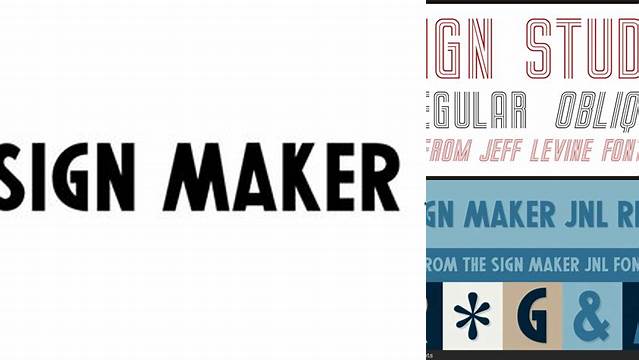
Hey guys, ever been on the hunt for that perfect font that just screams vintage or classic sign? You know, the kind of typeface that makes you feel like you’ve stepped into an old diner or a charming Main Street from yesteryear? Well, today, we’re diving deep into the world of Sign Maker JNL Font Free Download. This isn’t just any font; it’s a portal to a bygone era, offering a distinct aesthetic that many designers, crafters, and hobbyists are absolutely gaga over. Getting your hands on this gem for free download can seriously elevate your projects, whether you're making physical signs, digital graphics, or even just sprucing up a personal project. We’re talking about a font that embodies the spirit of hand-painted signs and traditional lettering, bringing a unique character that modern, sleek fonts just can’t replicate. So, buckle up, because we’re going to explore everything about this fantastic font, from where to find it to how to use it like a pro. Let’s get those design gears turning!
Unlocking the Charm of Sign Maker JNL Font Download
When you’re looking to infuse a touch of classic Americana into your designs, Sign Maker JNL Font download is often the first name that pops into mind for many design enthusiasts. This font isn't just a collection of letters; it’s a carefully crafted piece of digital art designed by Jeff Levine, known for his incredible work in reviving vintage typography. The charm of Sign Maker JNL Font lies in its authentic resemblance to old-school, hand-lettered signs, the kind you’d see adorning storefronts and advertisements from the mid-20th century. Guys, imagine the painstaking detail that went into those original signs, the slight imperfections that gave them character – JNL has managed to capture that essence beautifully in a digital format. This makes the Sign Maker JNL Font download an incredibly valuable asset for anyone working on projects that require a nostalgic or retro feel. Whether you’re designing a logo for a boutique coffee shop that wants to evoke a vintage vibe, creating invitations for a themed party, or even just making a cool poster for your room, this font delivers that perfect blend of history and style. Getting your hands on the Sign Maker JNL Font download means you’re not just getting a typeface; you’re acquiring a piece of design history that’s ready to be reimagined for your contemporary creative endeavors. It’s about more than just aesthetics; it's about conveying a story, a feeling, and a sense of timelessness through your choice of typography. So, if you're aiming for authenticity and a warm, inviting retro feel, you absolutely need to explore the possibilities that a Sign Maker JNL Font download brings to your creative toolkit. It truly stands out as a unique and versatile option for a wide array of graphic design applications, setting your work apart with its distinctive character and undeniable appeal.
The Allure of Retro Signage Fonts Free
The allure of retro signage fonts free is undeniable, especially for designers and hobbyists keen on recreating that classic, nostalgic aesthetic. There's something inherently charming about typography that harks back to simpler times, to hand-painted shop signs and vintage advertisements. Retro signage fonts free downloads offer an accessible entry point into this rich design tradition, allowing creators to experiment with different styles without breaking the bank. Many of these fonts, including variations inspired by or similar to Sign Maker JNL Font, capture the warmth and character often missing in more modern, minimalist typefaces. Guys, imagine trying to evoke a 1950s diner vibe or a Prohibition-era speakeasy feel; a generic sans-serif just won't cut it. You need something with personality, with a story, and that's precisely what retro signage fonts free options provide. They come loaded with stylistic details – think slightly distressed textures, unique serifs, or playful letterforms – that instantly transport your audience to another era. These fonts are incredibly versatile, perfect for everything from branding projects for vintage-inspired businesses to personal craft projects like custom t-shirts or greeting cards. The availability of retro signage fonts free means that even if you're just starting out or working on a tight budget, you don't have to compromise on achieving that authentic, handcrafted look. You can find a plethora of these typefaces on various font aggregate sites, often with clear licensing information for personal use. It’s a fantastic opportunity to build up your font library with unique, character-rich options that can add significant depth and visual interest to your work. So, dive into the world of retro signage fonts free; you'll be amazed at how quickly they can transform an ordinary design into something truly extraordinary and captivating.